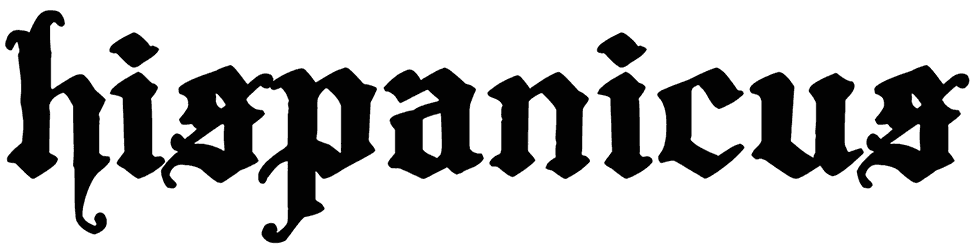
Hispanicus Font
If you are looking for an attractive gothic font, the Hispancicus font is an appropriate choice. This medieval font has a stunning style and can be helpful for various cases, such as tattoos, posters, and prints on T-shirts.
The Hispancicus font’s letters are bold, and their form reminds you of medieval books; however, it does not support capital letters. This font has a dark theme with a serious style that makes it memorable.